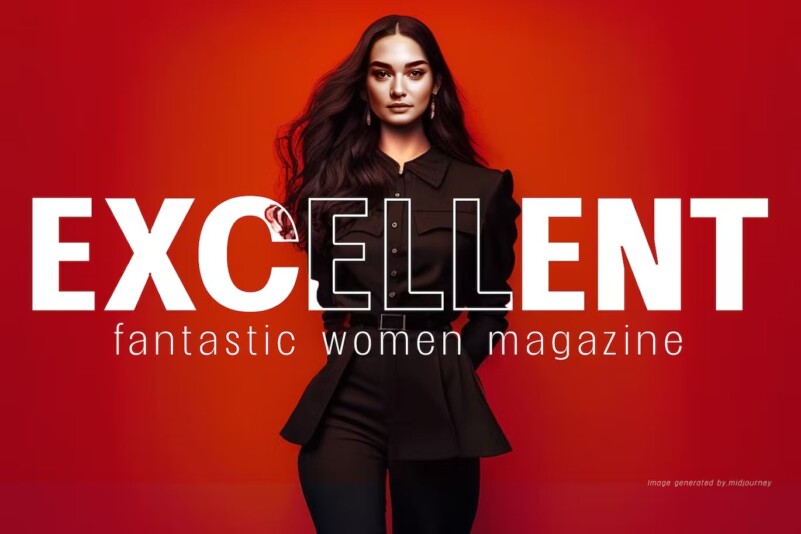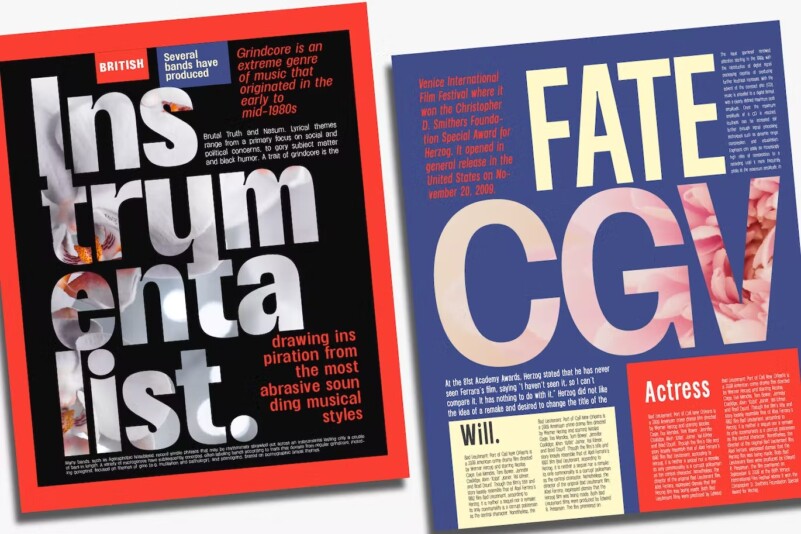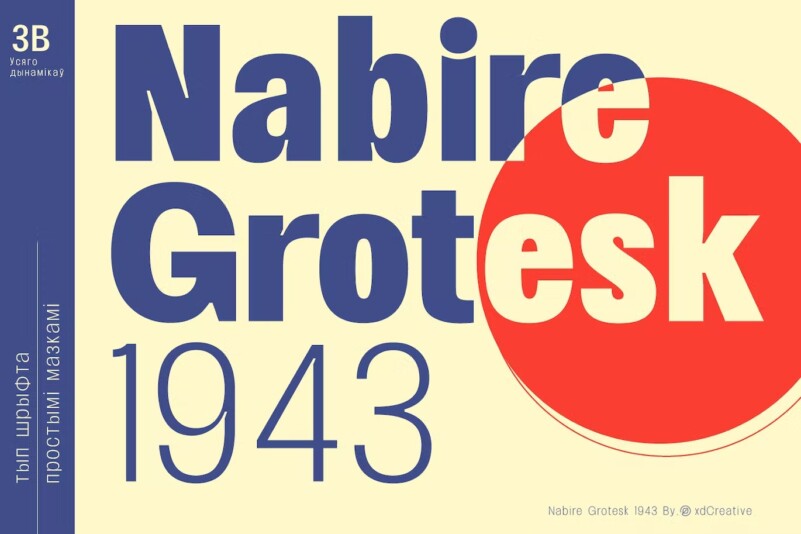
Nabire Grotesk 1943 Font
Nabire Grotesk 1943 is a type of sans-serif font that has a simple character and clean geometric shapes, with a lack of ornament.
Nabire Grotesk 1943 has an ink trap feature, which is a feature of certain typefaces designed for printing in small sizes.
Nabire Grotesk 1943 also has clean features, and modern lines and are considered to be a more neutral and versatile typeface, making them well-suited for a variety of uses, such as headlines, titles, and body text. They are also often used in digital environments, where their simple and straightforward design is considered to be more legible on screens.